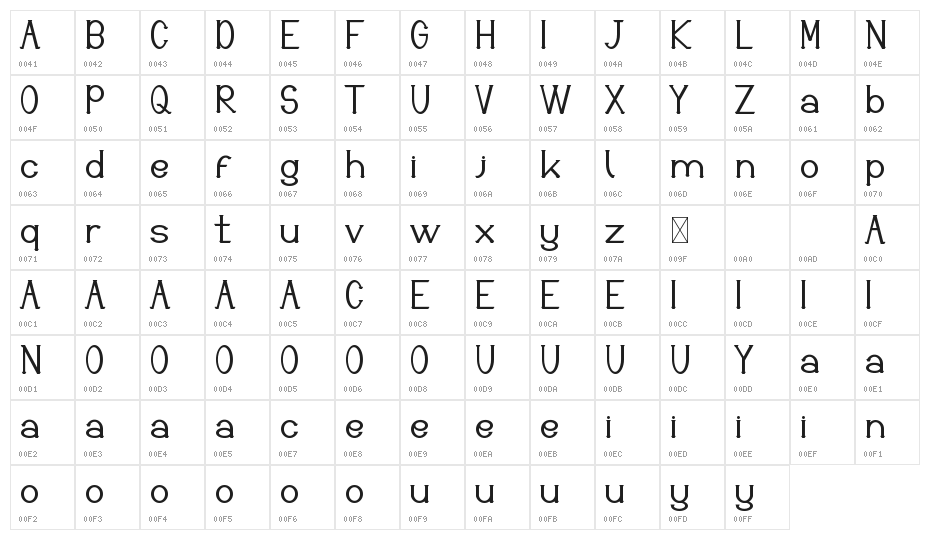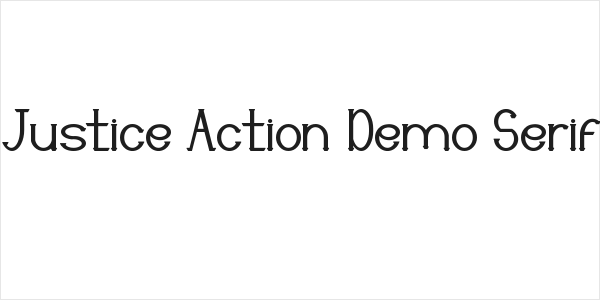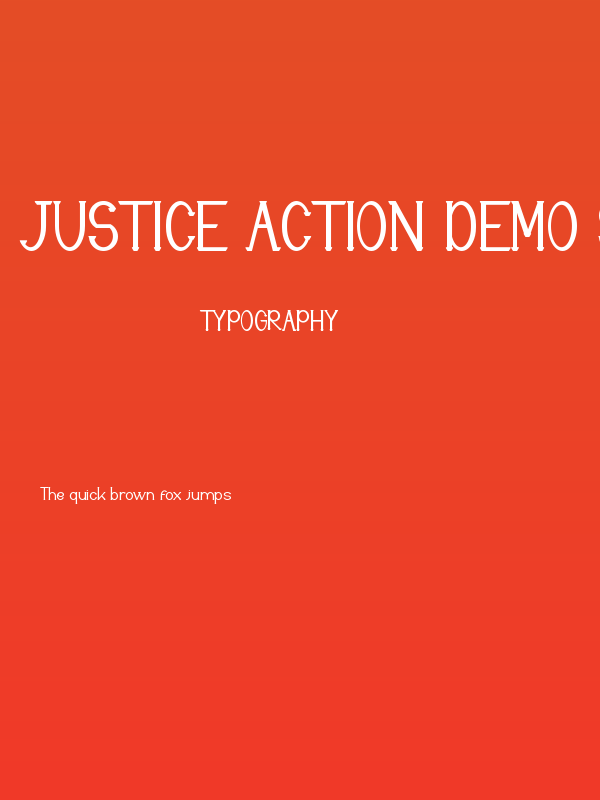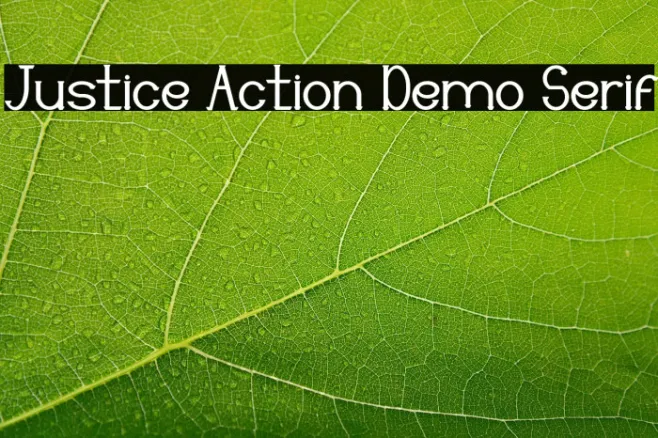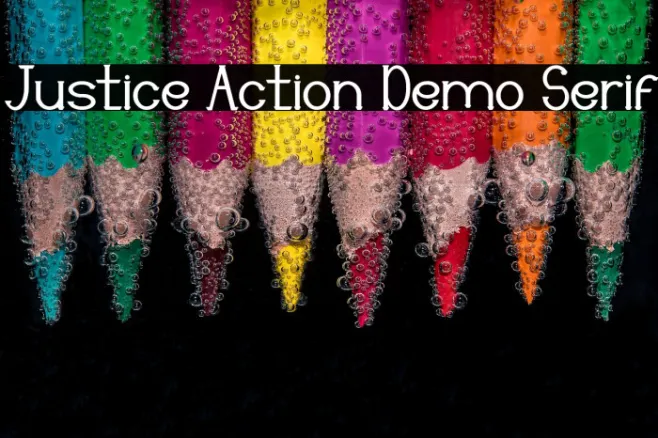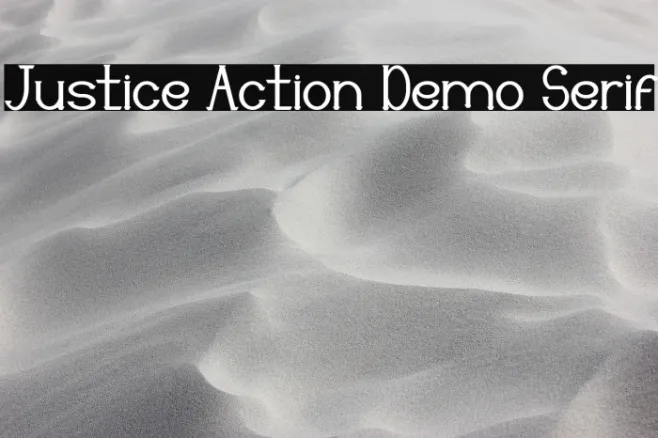
Justice Action Demo Serif Font
Justice Action Demo Serif Description
This font features a unique blend of classic serif elements with a modern twist. The uppercase letters are bold and commanding, with distinct serifs that give them a traditional feel. The lowercase letters maintain a consistent style, with rounded edges that add a touch of softness. The numerals are clear and easy to read, making them suitable for various applications. Special characters are designed with the same attention to detail, ensuring they fit seamlessly with the rest of the typeface. Overall, this font combines elegance with readability, making it versatile for both formal and creative projects.
| Proposed Projects | Ideal for book covers, editorial design, branding, and advertising campaigns. |